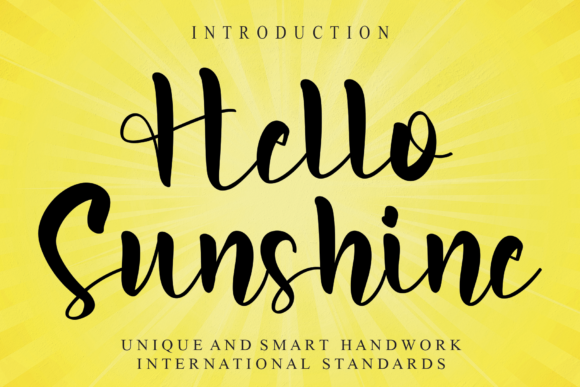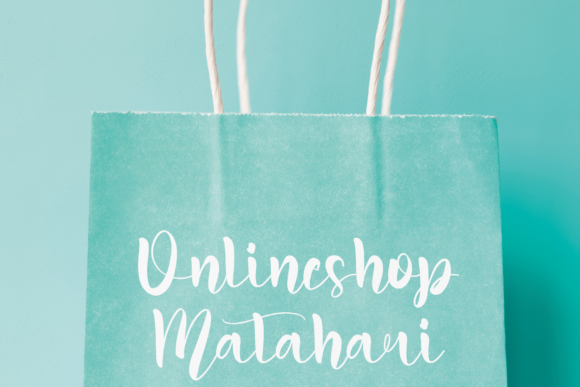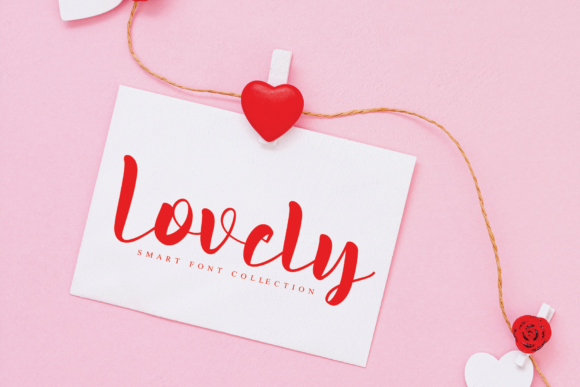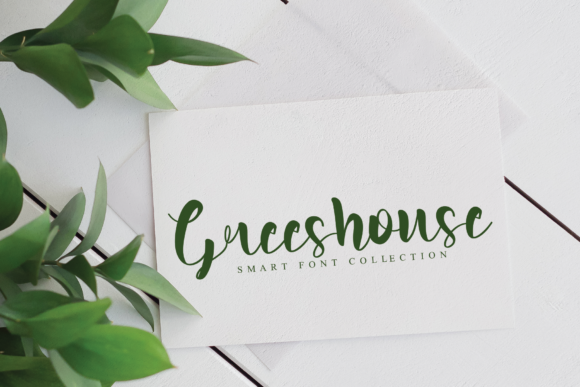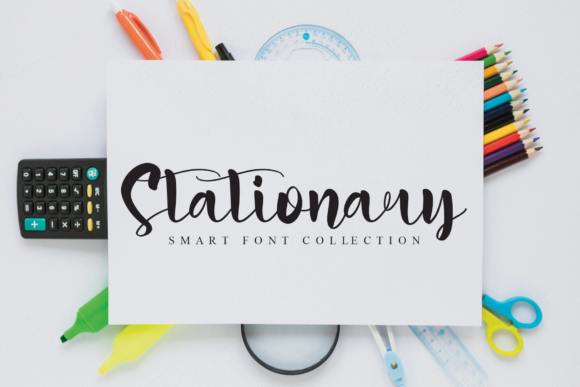
Hello Sunshine Font
About Hello Sunshine Font
Hello Sunshine is a delightful script font that exudes a lovely, chic, and round lettered charm. With its beautiful and well-balanced characters, this font is perfect for a wide range of designs requiring a personalized touch.
The rounded letterforms of Hello Sunshine give it a soft and playful appearance, adding a touch of elegance to any design project. Whether you’re creating wedding invitations, thank you cards, or greeting cards, this font will bring a sense of style and sophistication to your designs.
The versatility of Hello Sunshine allows it to be used in various contexts. Its elegant yet friendly style makes it suitable for both formal and informal occasions. From weddings and special events to branding materials and logos, Hello Sunshine adds a personalized and unique flair to your designs.
One of the standout features of Hello Sunshine is its ability to evoke a sense of joy and happiness. The rounded letterforms and flowing strokes create a warm and inviting feel, capturing the essence of sunshine. This makes the font particularly well-suited for designs that aim to convey positivity and happiness.
Hello Sunshine’s smooth and flowing letterforms make it a pleasure to read and work with. The well-balanced characters ensure readability while maintaining a stylish and unique look. The font’s versatility extends to different sizes, making it equally suitable for large headlines and smaller body text.
In summary, Hello Sunshine is a lovely, chic, and round lettered script font that adds a personalized touch to a variety of designs. Its beauty and versatility make it a perfect choice for wedding invitations, thank you cards, greetings, logos, and more. With its warm and inviting feel, Hello Sunshine brings a touch of joy and style to your creative projects.